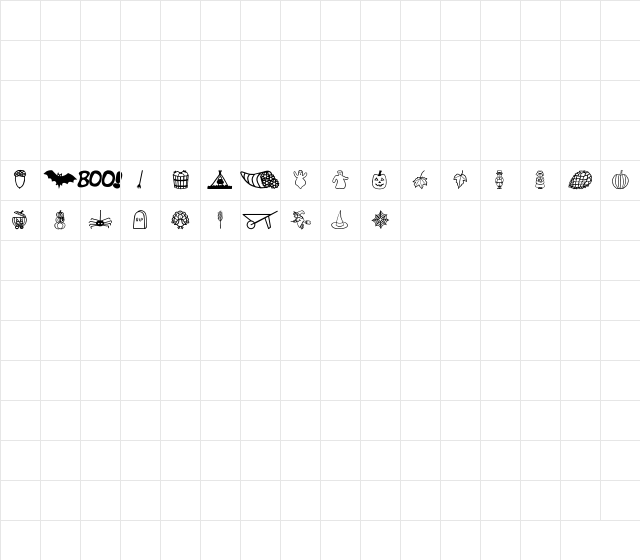
Complete NDC Autumn Dings Regular glyph index. Displaying only characters natively supported by NDC Autumn Dings Regular font.
NDC Autumn Dings is a composed and adaptable typeface that performs quietly and consistently across a wide range of design contexts.